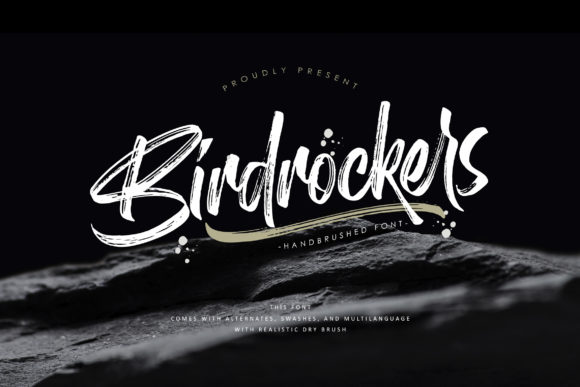
The Urban Vibe of Birdrockers Font: A Designer’s Delight
I’ll never forget the design project that led me to discover Birdrockers Font. I was working on a branding campaign for a trendy new coffee shop, and I needed a font that would capture the urban, edgy vibe of their brand. After hours of scrolling through font libraries, I stumbled upon Birdrockers – a contemporary brush font with a bold twist. It was love at first sight! 💕
An Honest Review of Birdrockers Font
- ✨ Unique blend of bold and playful: Birdrockers Font has a distinctive urban feel that’s perfect for headlines, titles, and branding projects.
- ✅ Highly legible: Despite its bold and brush-like appearance, Birdrockers Font is surprisingly easy to read, even in smaller sizes.
- 💥 Expressive: The font comes with a range of OpenType features, glyphs, and stylistic alternates that allow for endless creative possibilities.
While Birdrockers Font is an amazing addition to any design project, there are a few things to keep in mind:
- 🤔 Limited suitability for body text: Due to its bold and playful nature, Birdrockers Font might not be the best choice for longer blocks of text.
- ⚠️ Occasional inconsistencies: As with any brush font, there might be slight inconsistencies in stroke width or letter spacing.
The Designer’s Inspiration Behind Birdrockers Font
According to its creators, Birdrockers Font was inspired by the urban landscapes of modern cities. The font’s bold, brush-like appearance is meant to evoke the energy and creativity of city life. Whether you’re designing a logo, brochure, or social media post, Birdrockers Font is the perfect choice for adding a touch of urban flair.
| Font Name | Birdrockers Font |
| Author | RochArt |
| What type of projects is Birdrockers Font best suited for? | Birdrockers Font is ideal for branding, headlines, titles, and any project that requires a bold, urban vibe. |
| Is Birdrockers Font suitable for body text? | While Birdrockers Font is legible, it’s not recommended for longer blocks of text due to its bold and playful nature. |